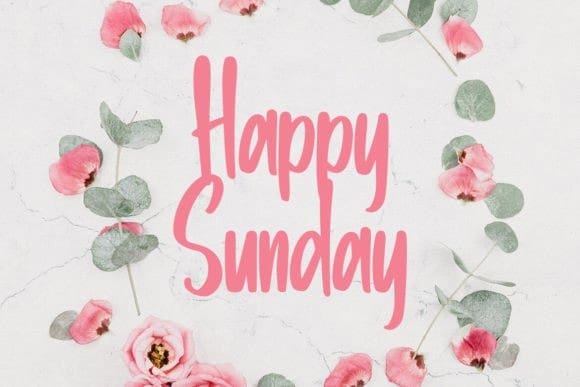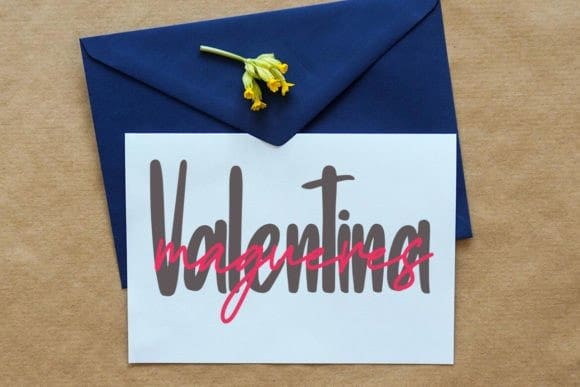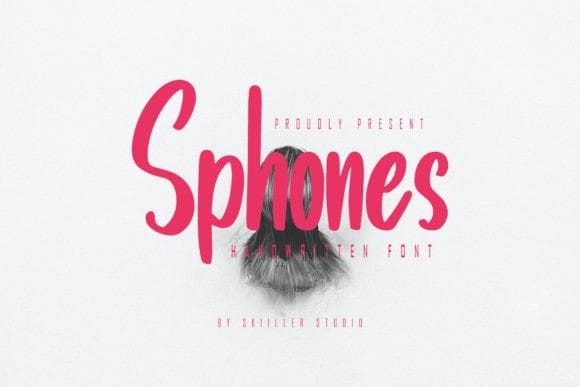
Sphones Font
Sphones Font is a unique and elegant handwritten font. It looks beautiful on a variety of designs requiring a personalized style, This font is PUA encoded which means you can access all of the glyphs and swashes with ease!